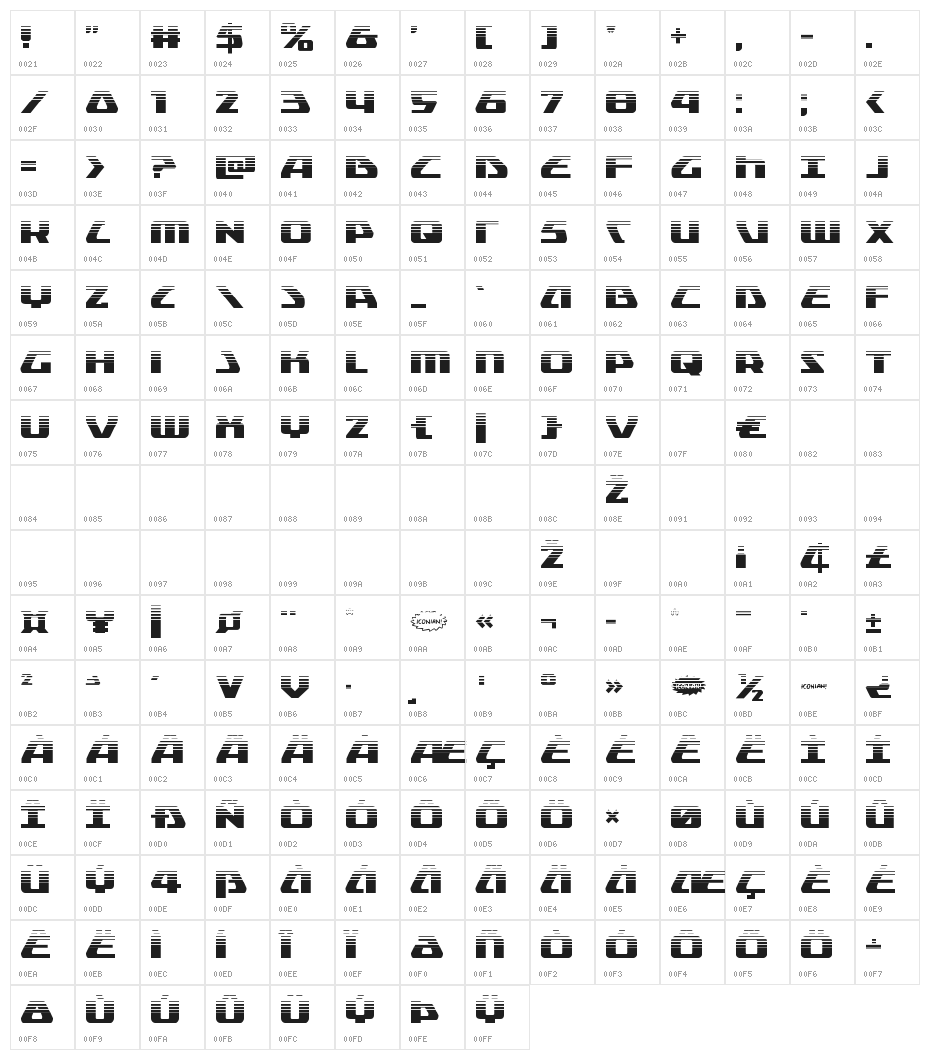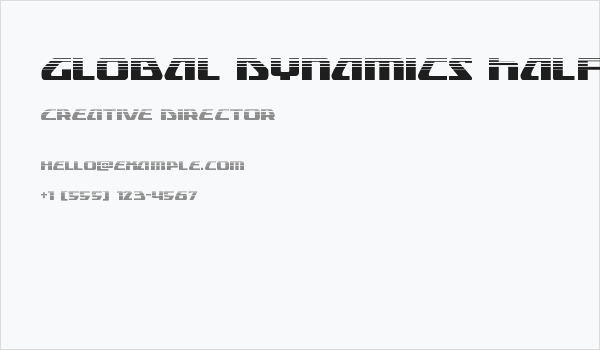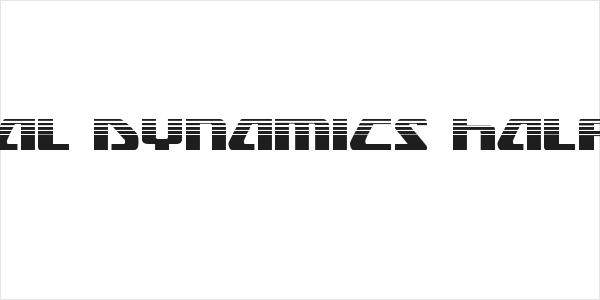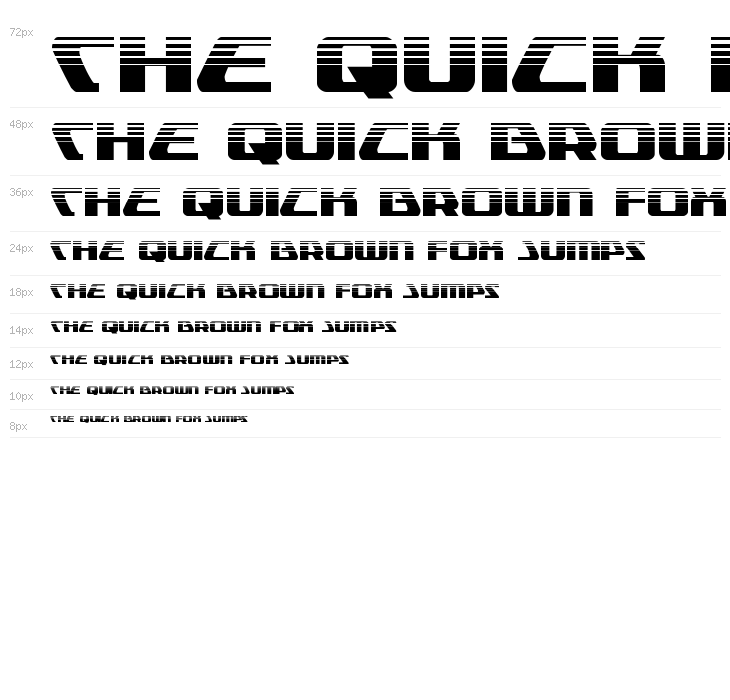
Global Dynamics Halftone Font
Global Dynamics Halftone Description
This font features a bold, futuristic design with a distinctive halftone effect. Each character is composed of solid, geometric shapes interspersed with horizontal lines, creating a dynamic and modern appearance. The uppercase and lowercase letters maintain a consistent style, emphasizing angular forms and sharp edges. The numbers and special characters follow the same design principles, ensuring uniformity across all glyphs. This font is ideal for projects that require a strong, contemporary aesthetic, such as technology branding, sci-fi themes, or digital media.
| Proposed Projects | Ideal for technology branding, sci-fi themes, digital media, and modern advertisements. |